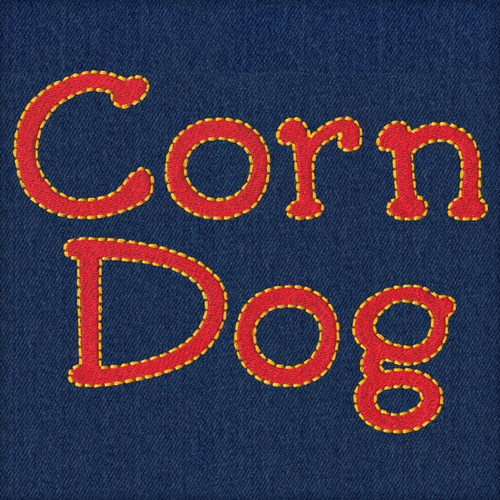
775 Corn Dog Fill & Floss Font
775 Corn Dog Fill & Floss Font comes in 1", 1.5", 2", 2.5", 3", 3.5" and 4" heights based on the capital Letters. Includes uppercase letters, lowercase letters, numbers and 13 punctuation marks. All characters finished in Fill Stitch with Floss Stitch outlines in 2 color set up.